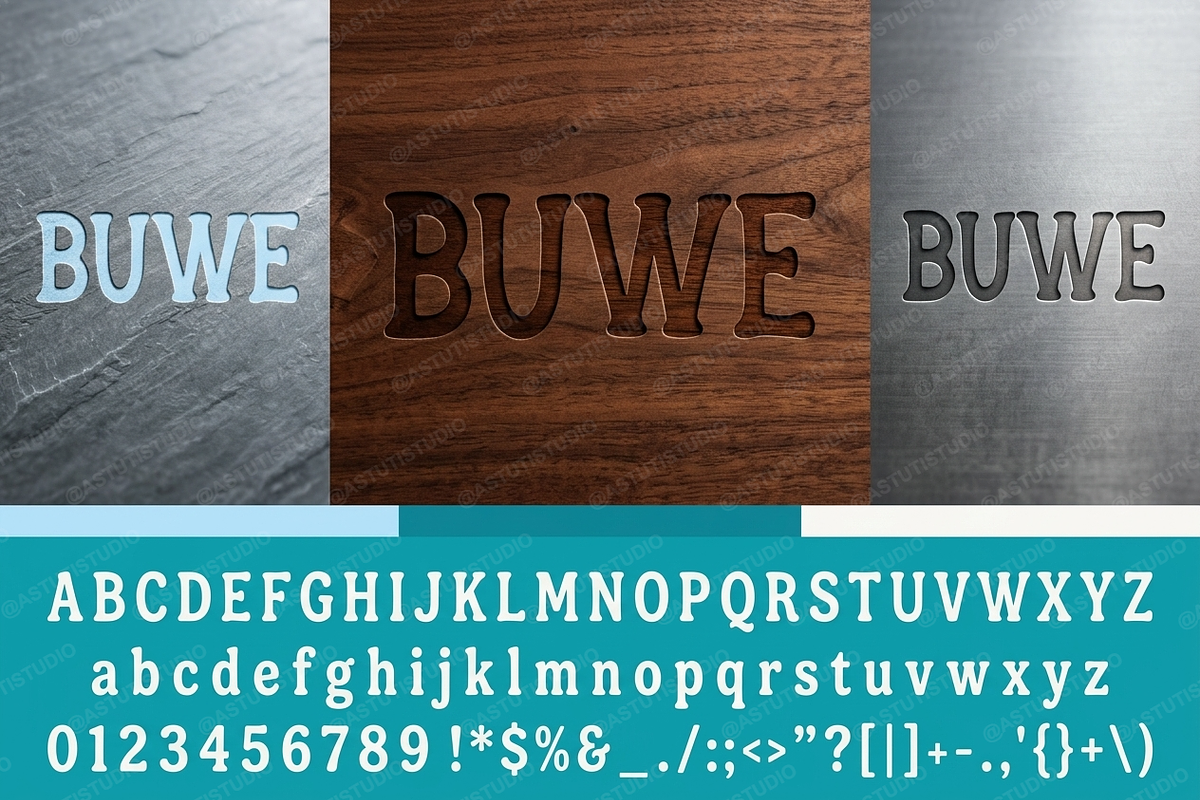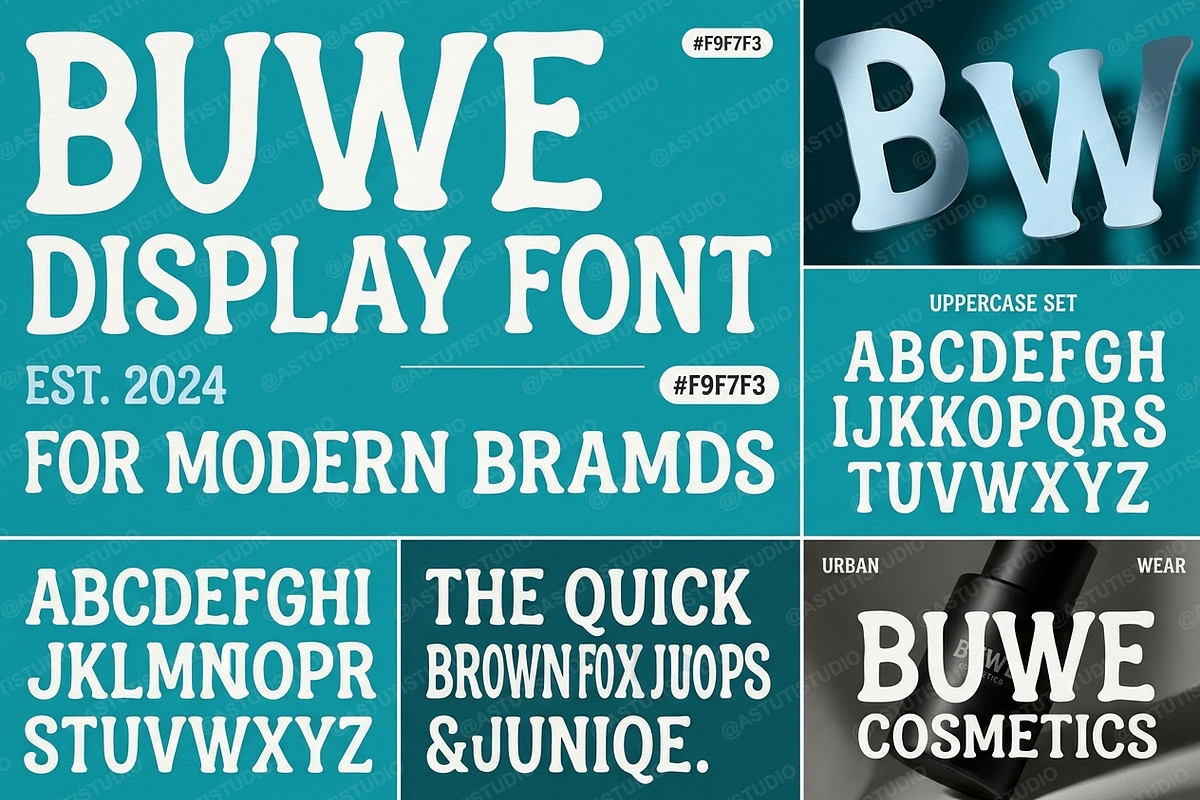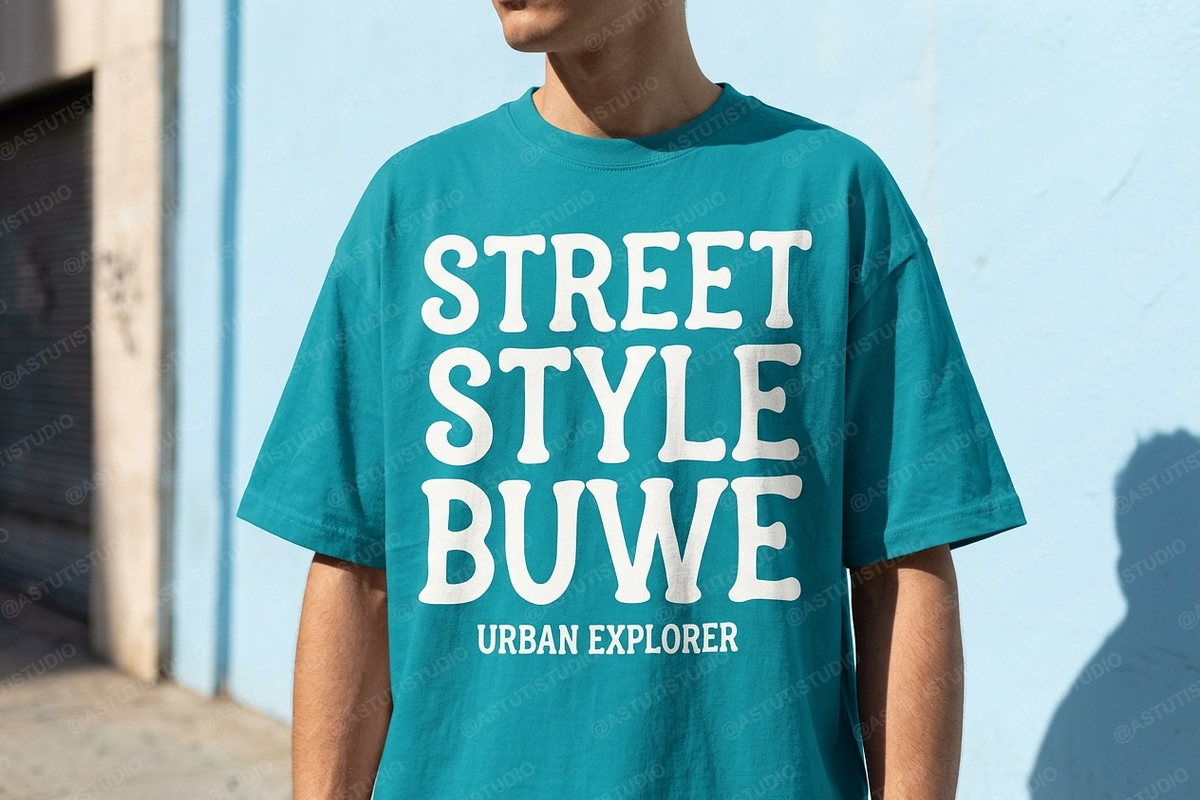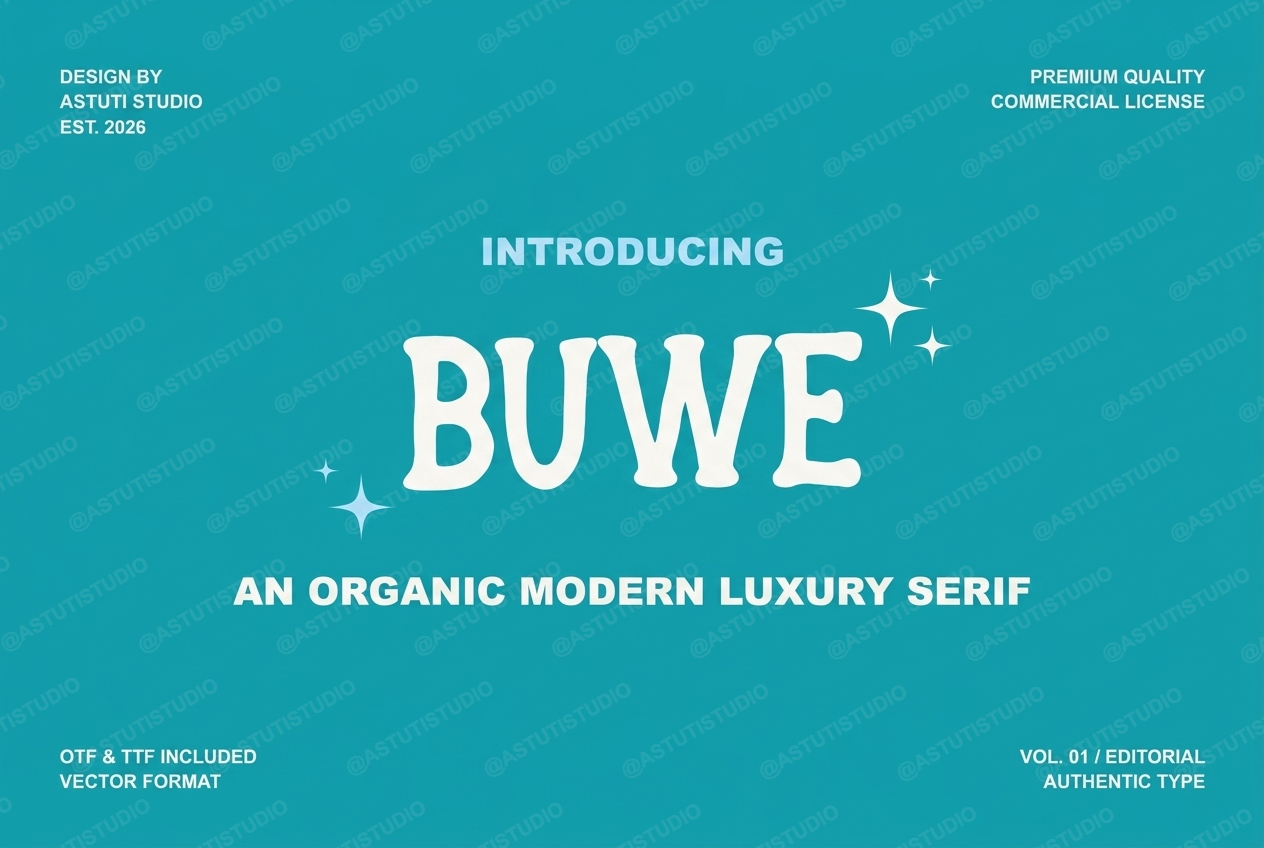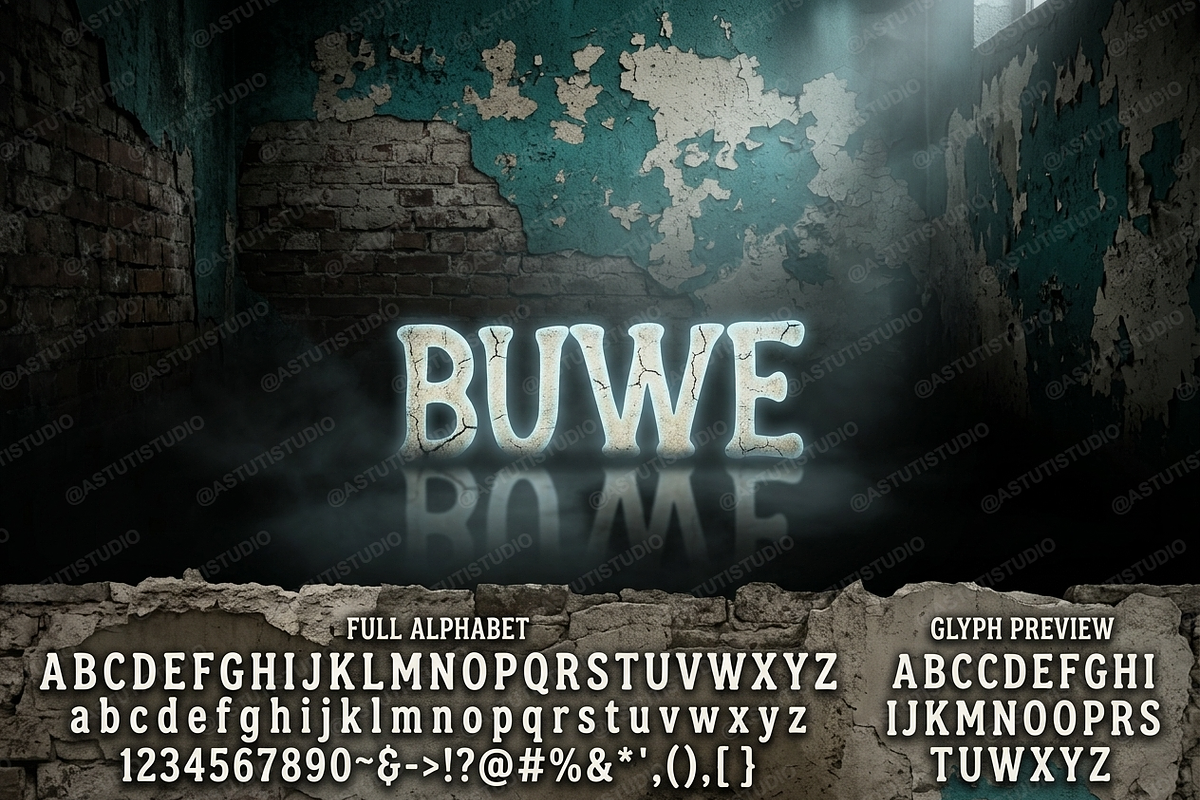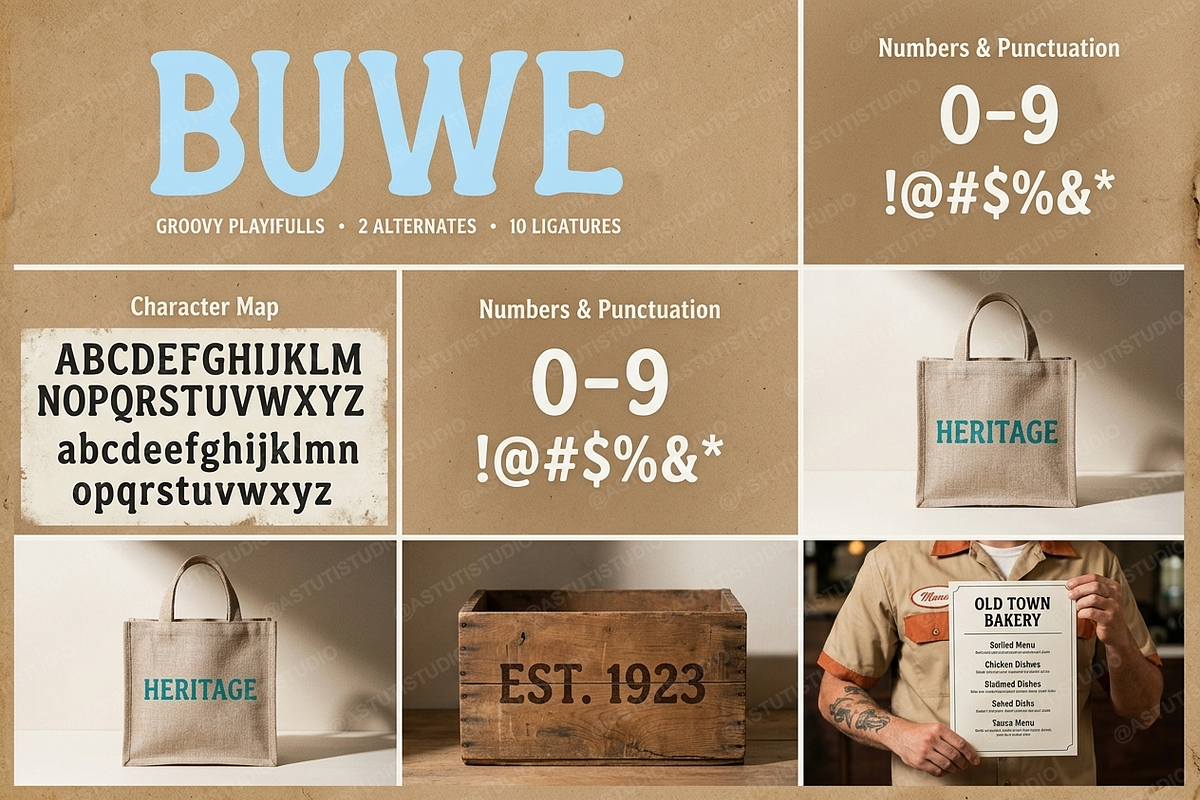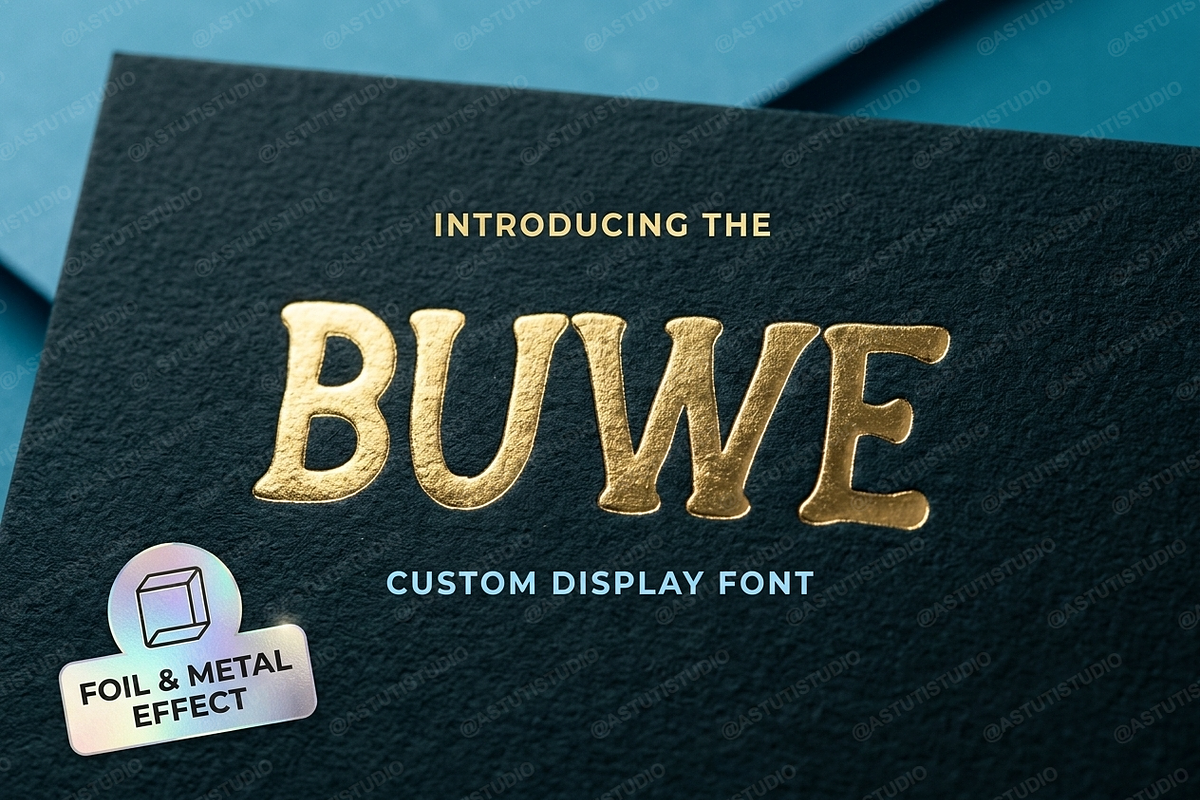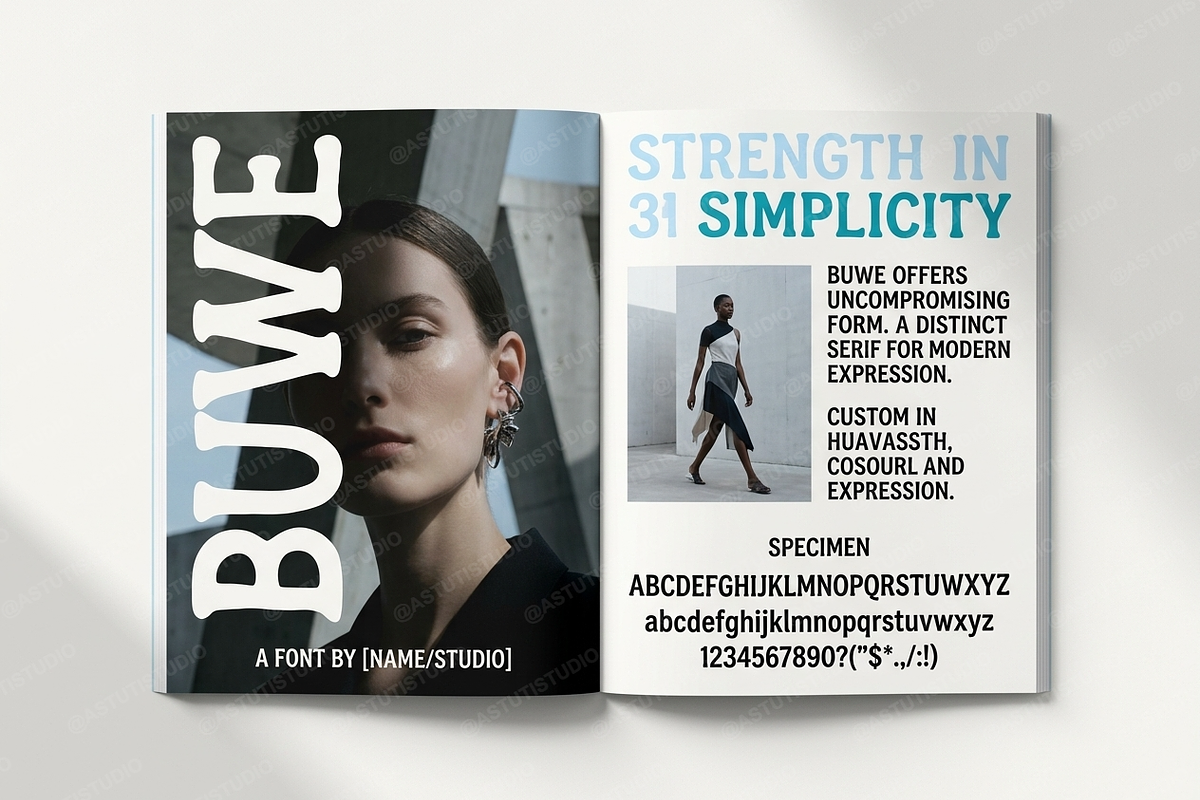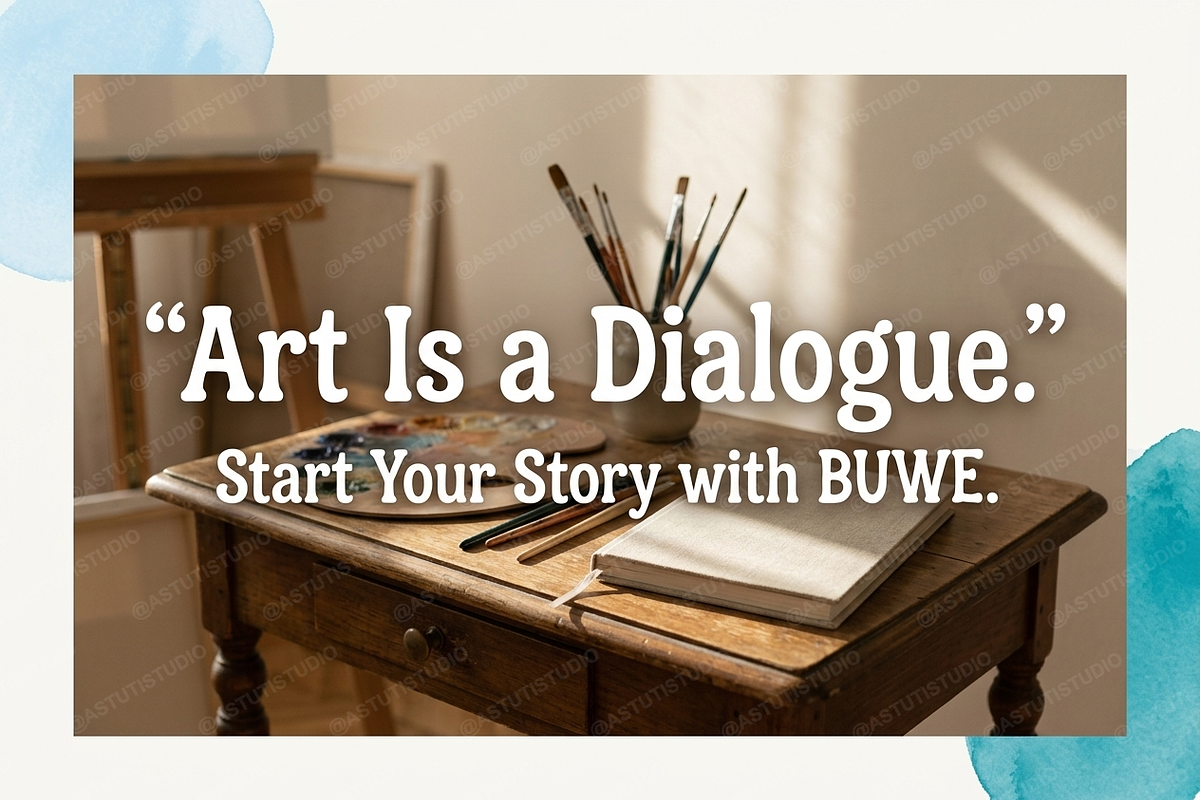
Buwe | Elegant Serif Typeface
INTRODUCTION
Buwe is a premium serif typeface designed for high-end aesthetics and timeless elegance. Characterized by its sophisticated silhouettes and refined contrast, Buwe is the perfect choice for designers looking to elevate their visual identity. Whether you are crafting a luxury brand logo, designing a high-fashion editorial layout, or curating a premium social media feed, this font provides the perfect balance of modern flair and classic grace.
- Sophisticated letterforms with high contrast
- Extensive set of unique ligatures for custom looks
- Elegant alternate characters for creative flexibility
- Comprehensive multilingual support
- Precise kerning and spacing for professional readability
- Versatile applications from print to digital displays
- Full set of uppercase and lowercase characters
- Numbers, punctuation, and decorative symbols